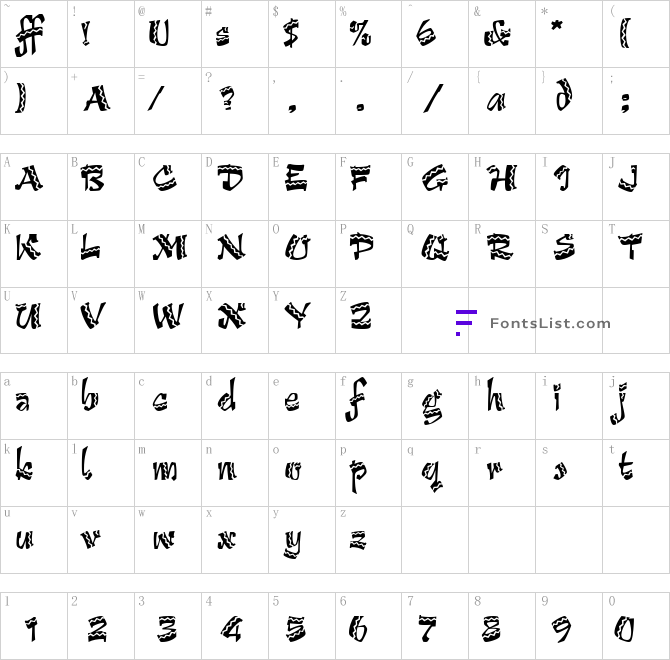
- Font Name:Arriba Arriba LET
Arriba-Arriba-LET.ttf is a very beautiful artistic font, Arriba-Arriba-LET.ttf is widely used in the design and printing of various books and pictures,Arriba-Arriba-LET.ttf has a strong visual impact,Arriba-Arriba-LET.ttf is a commonly used font in newspapers, magazines and books, and is used in posters, e-commerce Poster design, store design, logo design, font design and other fields.Arriba-Arriba-LET.